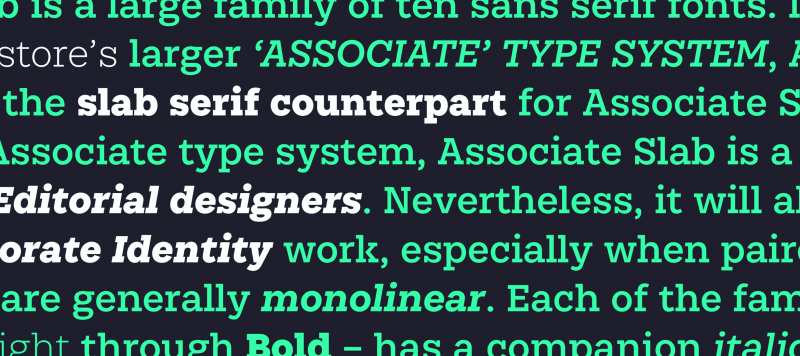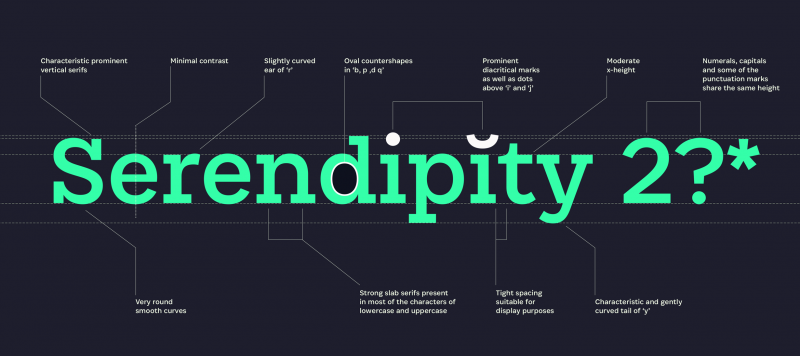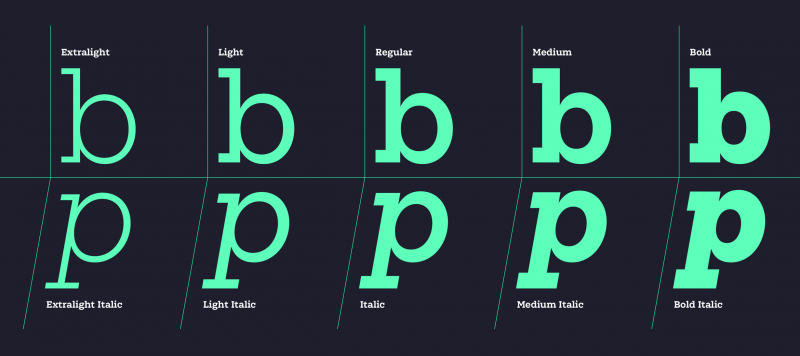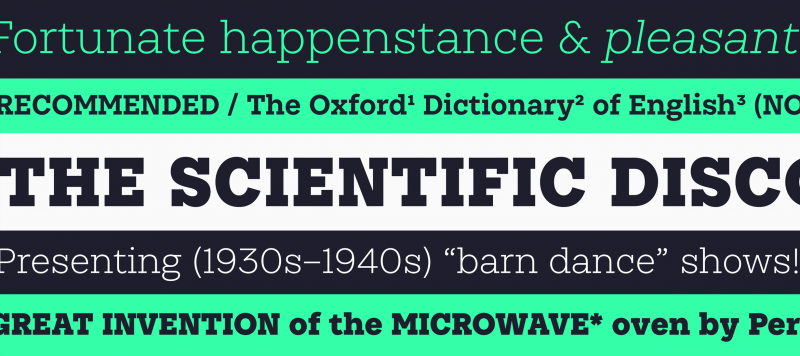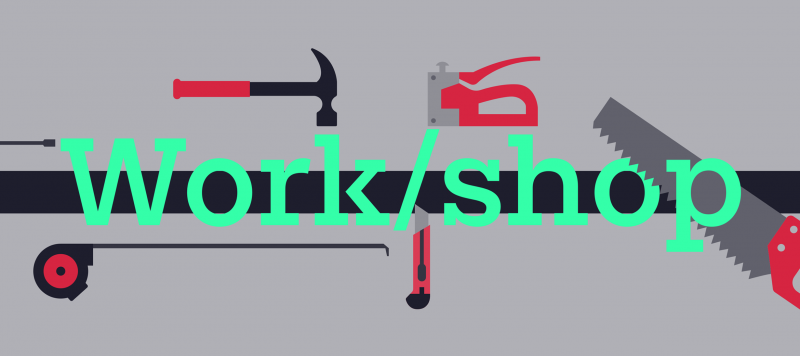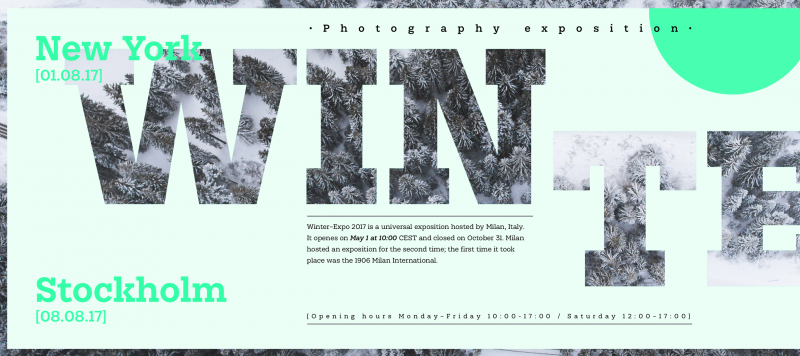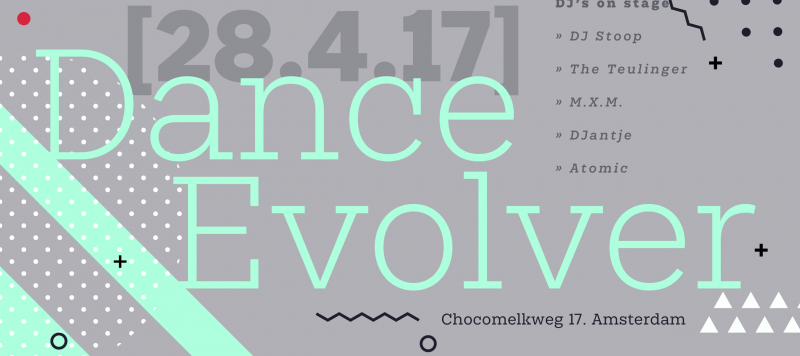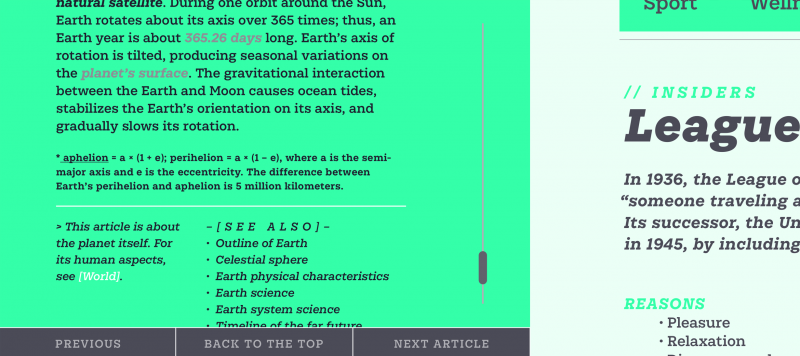
Associate Slab is a large family of ten sans serif fonts. Part of FontStore’s larger ‘Associate’ type system, Associate Slab was developed as the slab serif counterpart for Associate Sans. Nevertheless, its fonts could be used entirely on their own, too. Like its relatives in the overarching Associate type system, Associate Slab is a typeface intended for Editorial designers. Nevertheless, it will also shine in Corporate Identity work, especially when paired with other fonts. Associate Slab’s letters are generally monolinear. Each of the family’s five weights – from ExtraLight through Bold – has a companion italic font available. These italic fonts are ‘obliques;’ they differentiate texts set in them by their slant. On FontStore, you’ll find the other font families from the Associate Type System, including Associate Sans, Associate Sans Stencil, Associate Slab Stencil, and even Associate Sans Mono.
Associate Slab is designed by Jérémie Hornus.